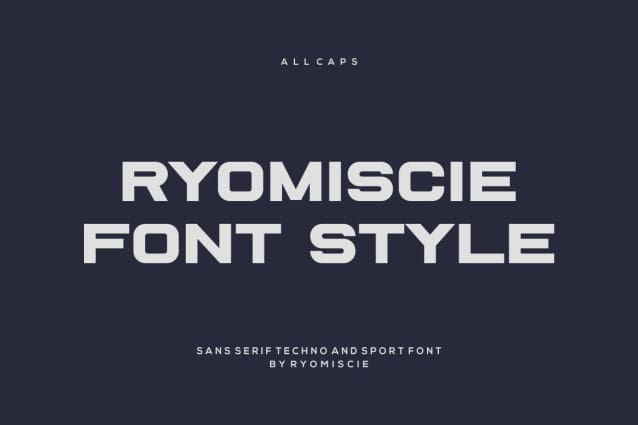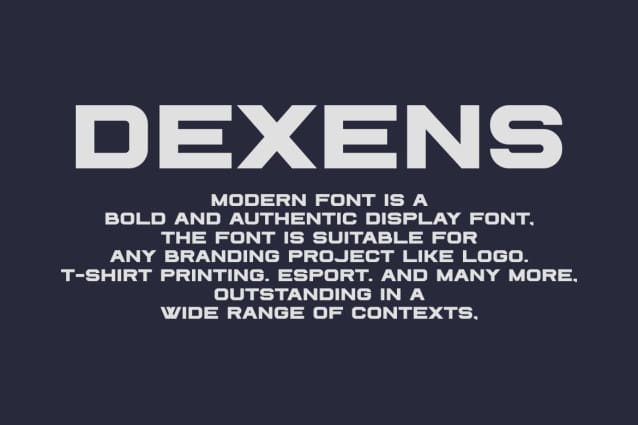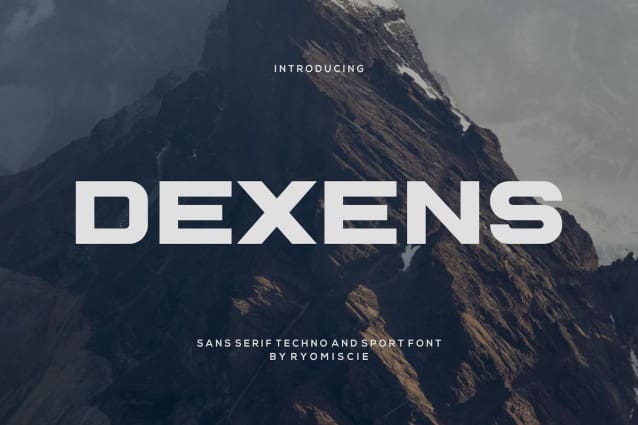
Dexens Font
Dexens Font – Modern Font is a bold and authentic display font. The font is suitable for any branding project like Logo, t-shirt printing, esports and many more. Excellent in a wide range of contexts.